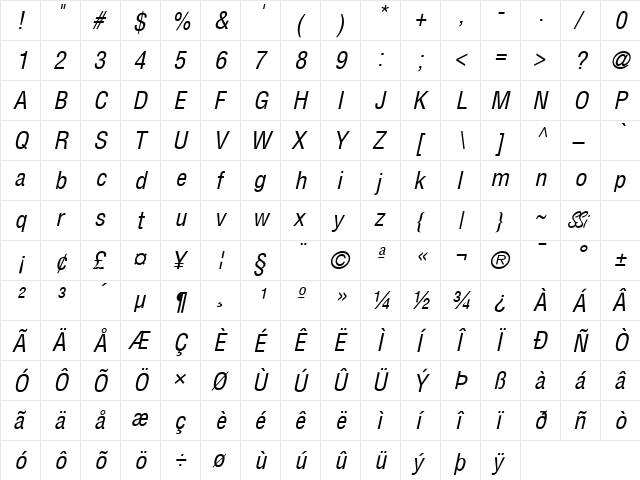
Context Condensed SSi Condensed Italic Font Preview
Design Context for Context Condensed SSi Typeface
Context Condensed SSi is a composed and adaptable typeface that performs quietly and consistently across a wide range of design contexts. The dynamic lean of this cut emphasises speed and emphasis in any layout. The condensed width makes it efficient for tight spaces without sacrificing legibility.
Pro Tip: Try Context Condensed SSi for annotation and caption copy alongside an upright companion — the contrast in angle creates a dynamic but ordered typographic system.